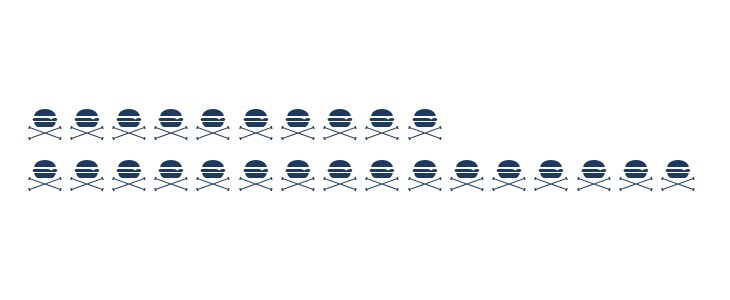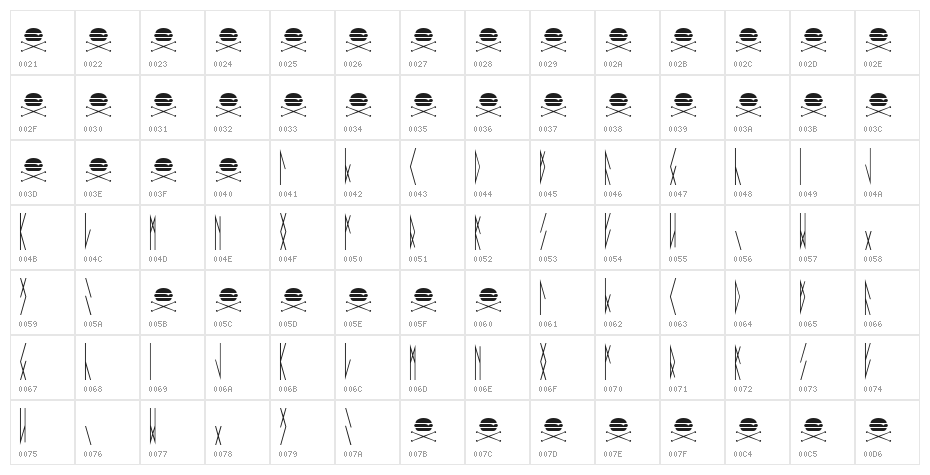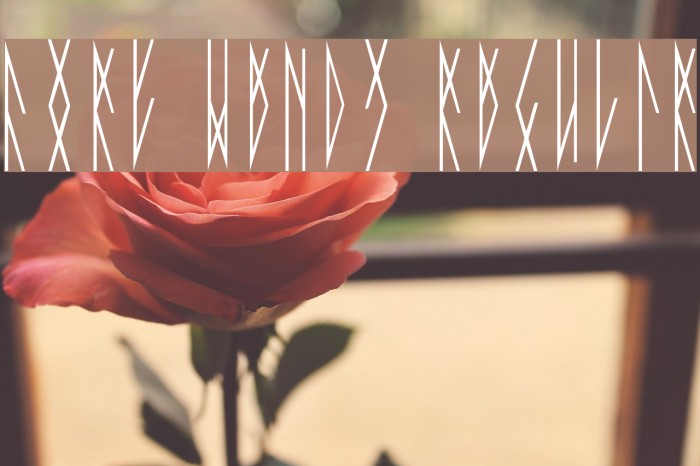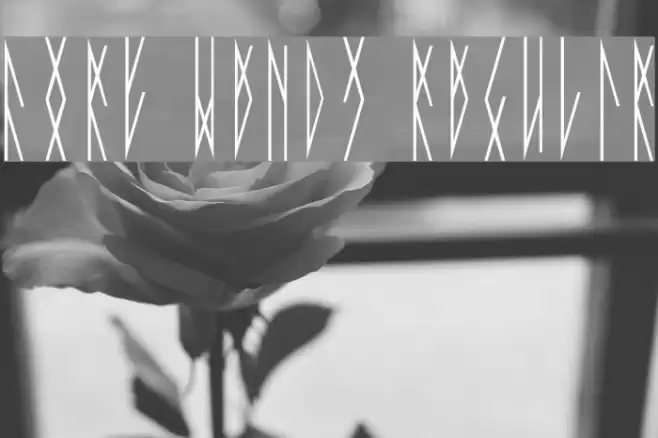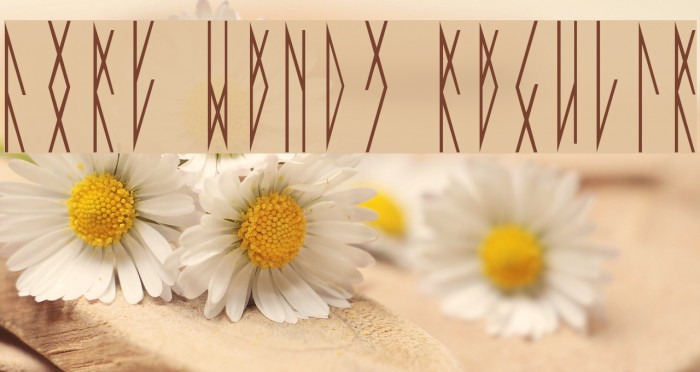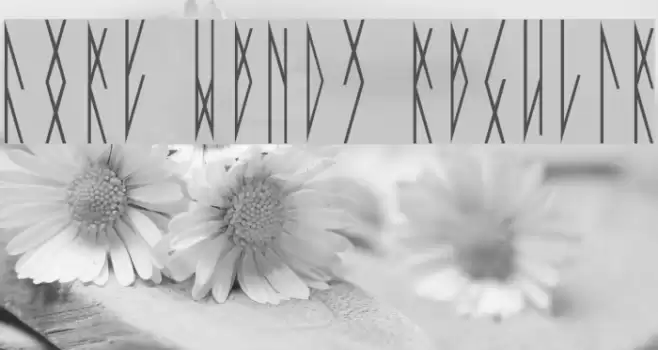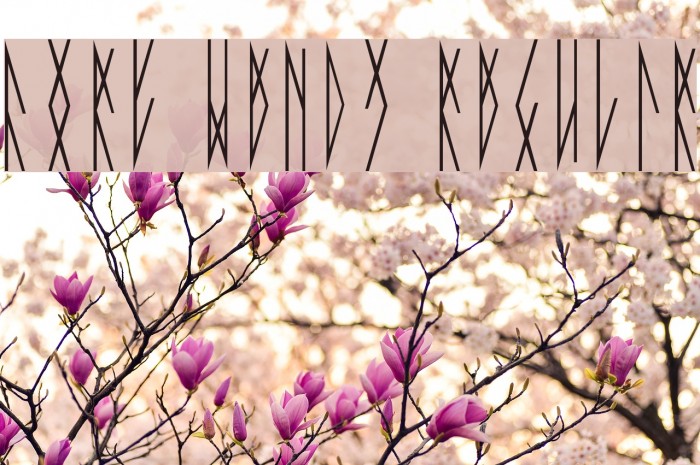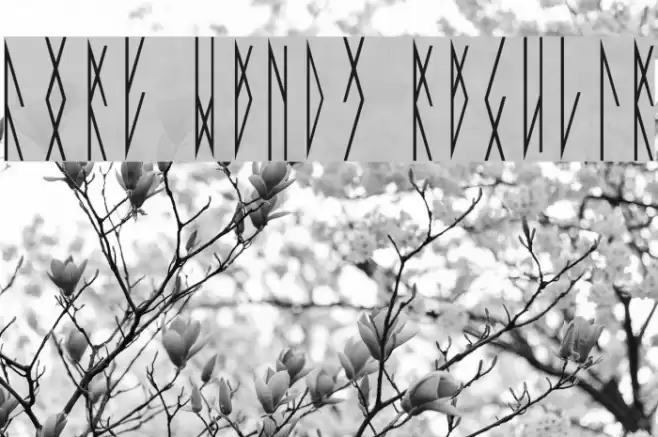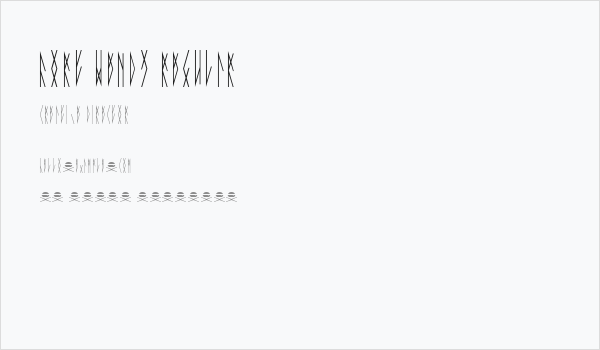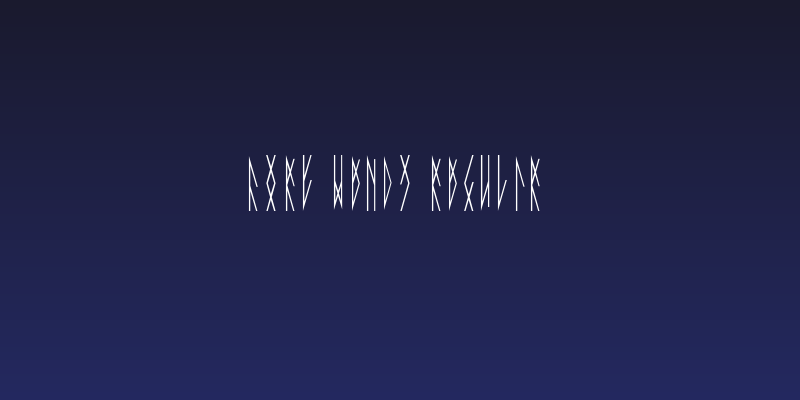
Fort Wendy Regular Font
Fort Wendy Regular Description
This font features a highly decorative and abstract design, characterized by elongated and angular letterforms that create a sense of mystery and intrigue. The characters are composed of intersecting lines and geometric shapes, giving them a unique, almost cryptic appearance. The font maintains a consistent height across all characters, contributing to a uniform and cohesive look. The special characters, such as the skull and crossbones, add a playful yet edgy element to the overall style. This font is not suitable for body text due to its complex design but can make a striking impact in headlines or logos.
| Proposed Projects | Ideal for use in branding, logos, posters, or any project that requires a bold and unconventional typeface. |